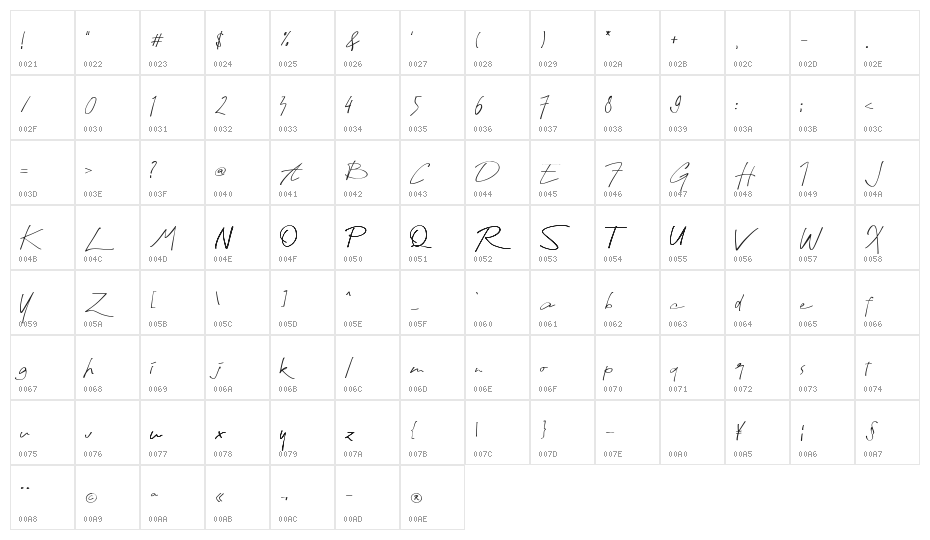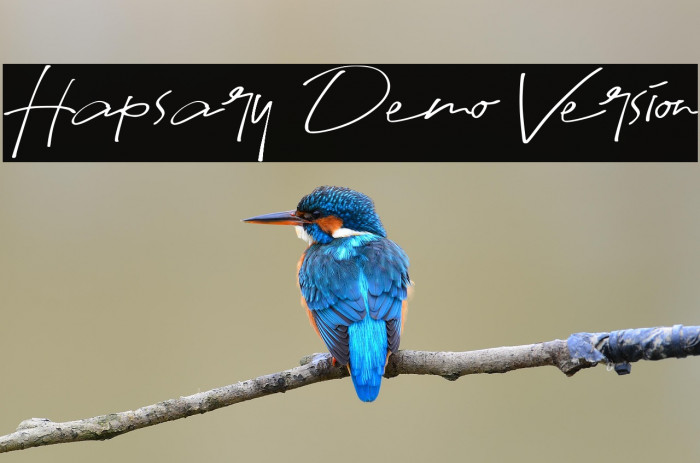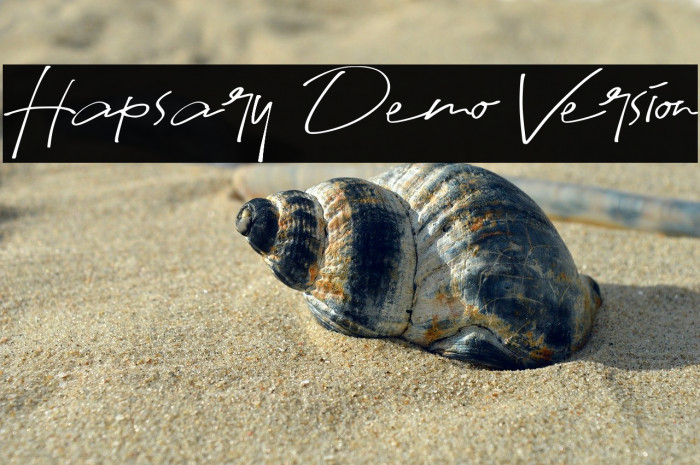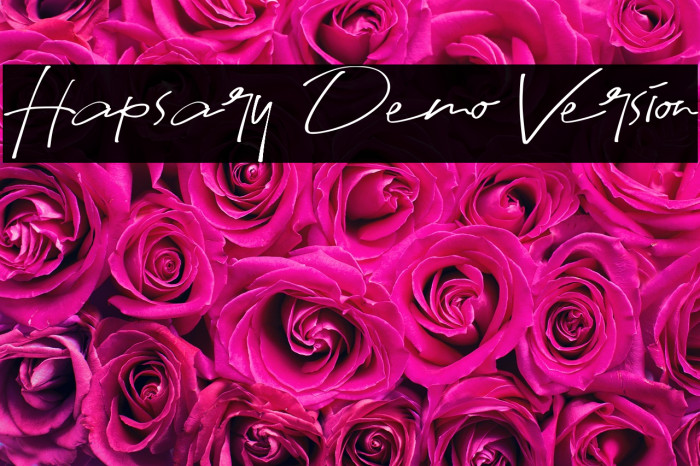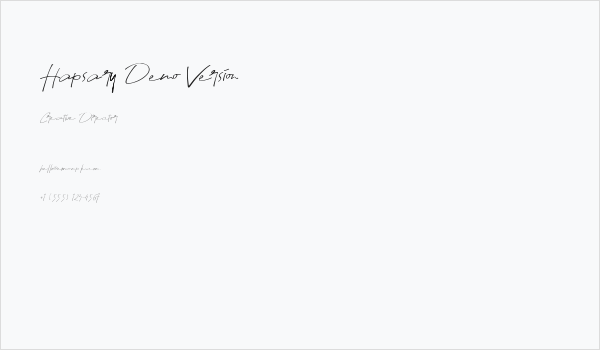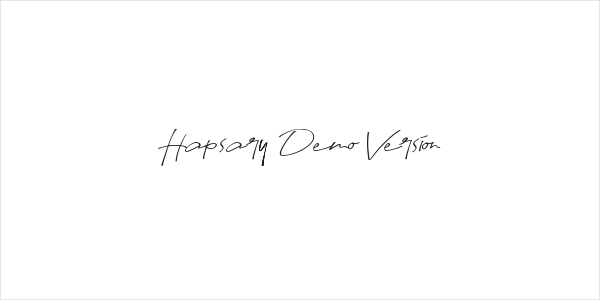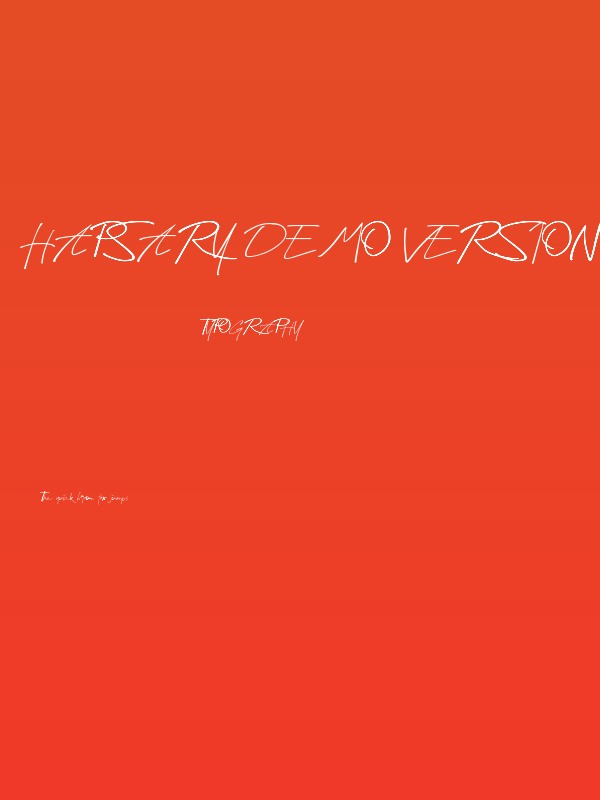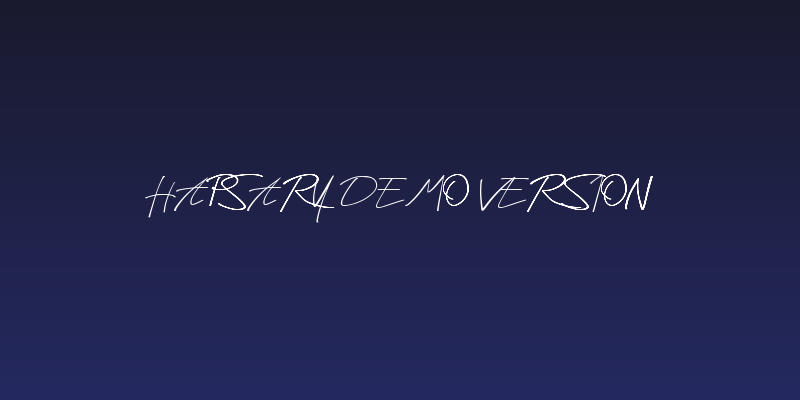
Hapsary Demo Version Font
Hapsary Demo Version Description
This font exudes a lively and dynamic handwritten style, characterized by its fluid and cursive strokes. The letters are elegantly connected, giving a sense of continuity and flow. The uppercase letters are bold and prominent, while the lowercase letters maintain a consistent rhythm. The numerals are distinct and easily readable, complementing the overall aesthetic. Special characters are crafted with the same attention to detail, ensuring they blend seamlessly with the rest of the font. This font's energetic and personal touch makes it suitable for creative projects that require a human touch.
Use CaseLogos, Invitations, Artistic projects
Proposed ProjectsIdeal for personal branding, invitations, greeting cards, and artistic projects.